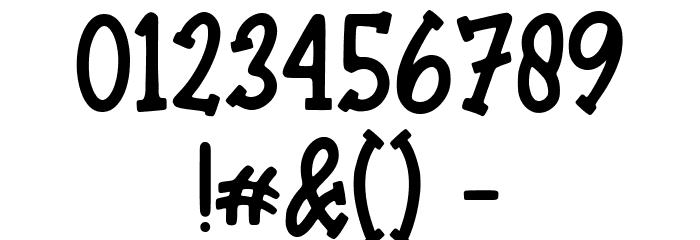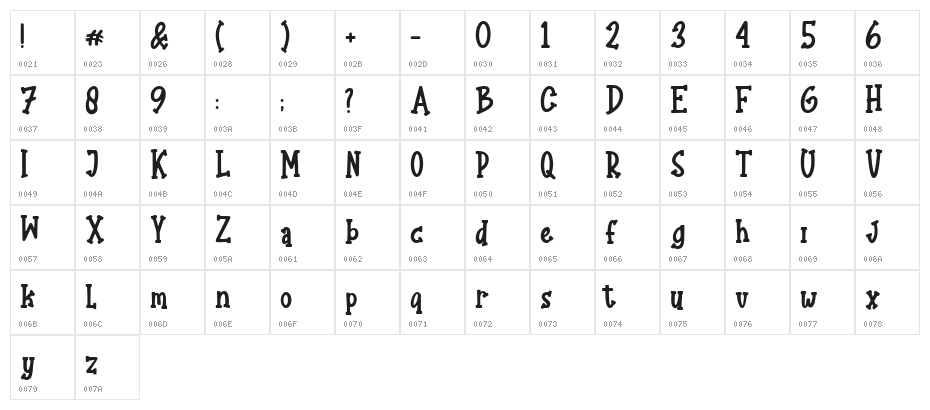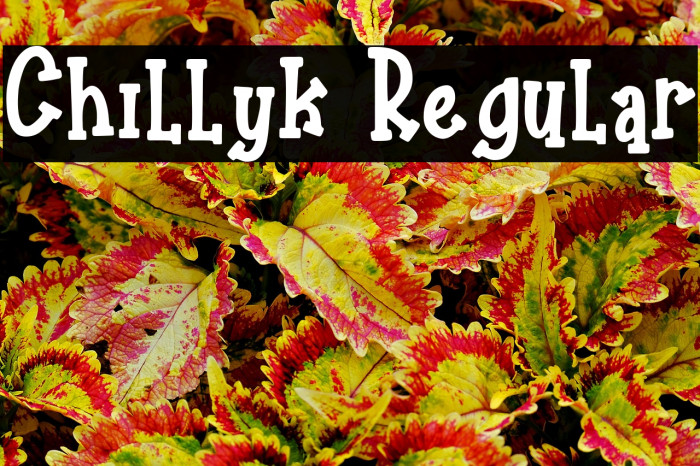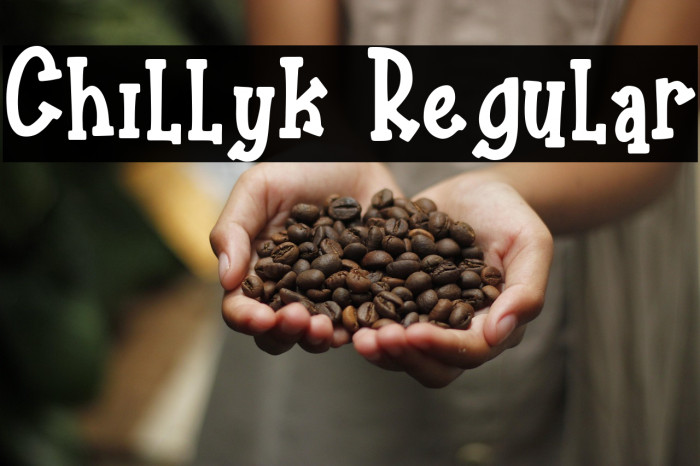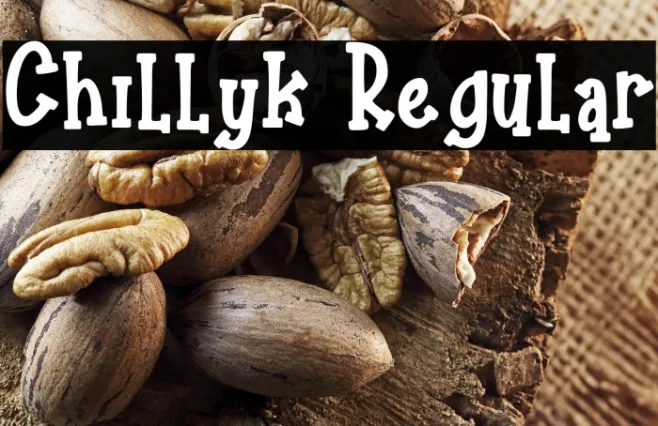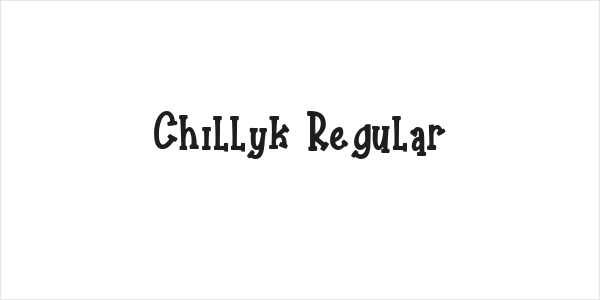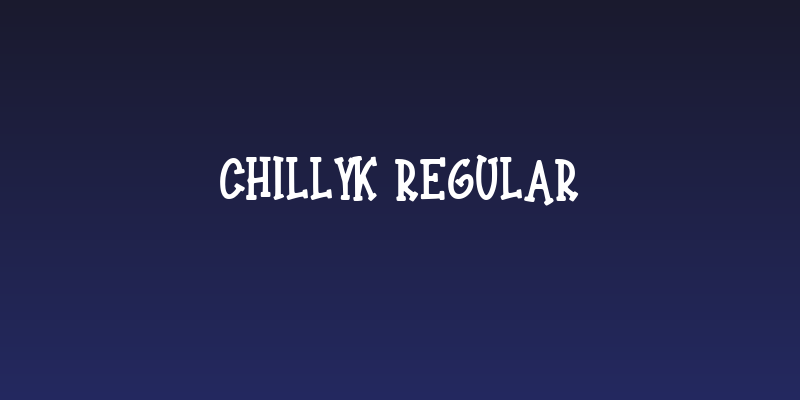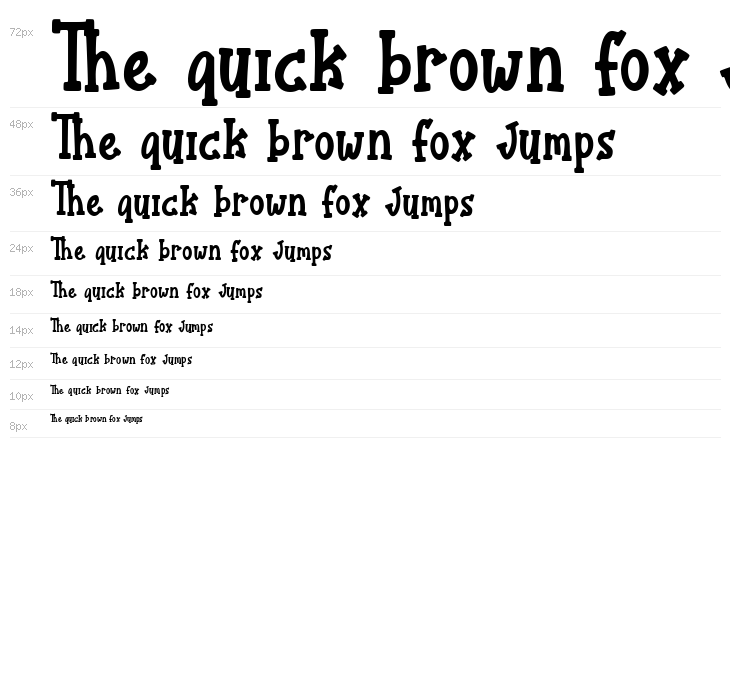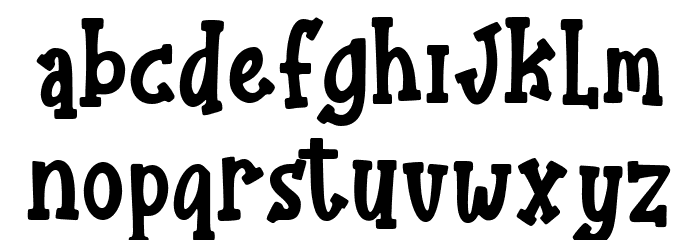
Chillyk Regular Font
Chillyk Regular Description
This font features a playful and whimsical style, characterized by its bold and slightly irregular letterforms. The strokes are thick and rounded, giving it a friendly and approachable appearance. The uppercase and lowercase letters maintain a consistent style, with a slight slant that adds to its casual feel. The numbers and special characters are designed to match the overall aesthetic, ensuring a cohesive look across all elements. This font is well-suited for projects that require a touch of fun and creativity, making it ideal for children's books, playful branding, or informal invitations.
| Proposed Projects | Children's books, playful branding, informal invitations, creative posters. |